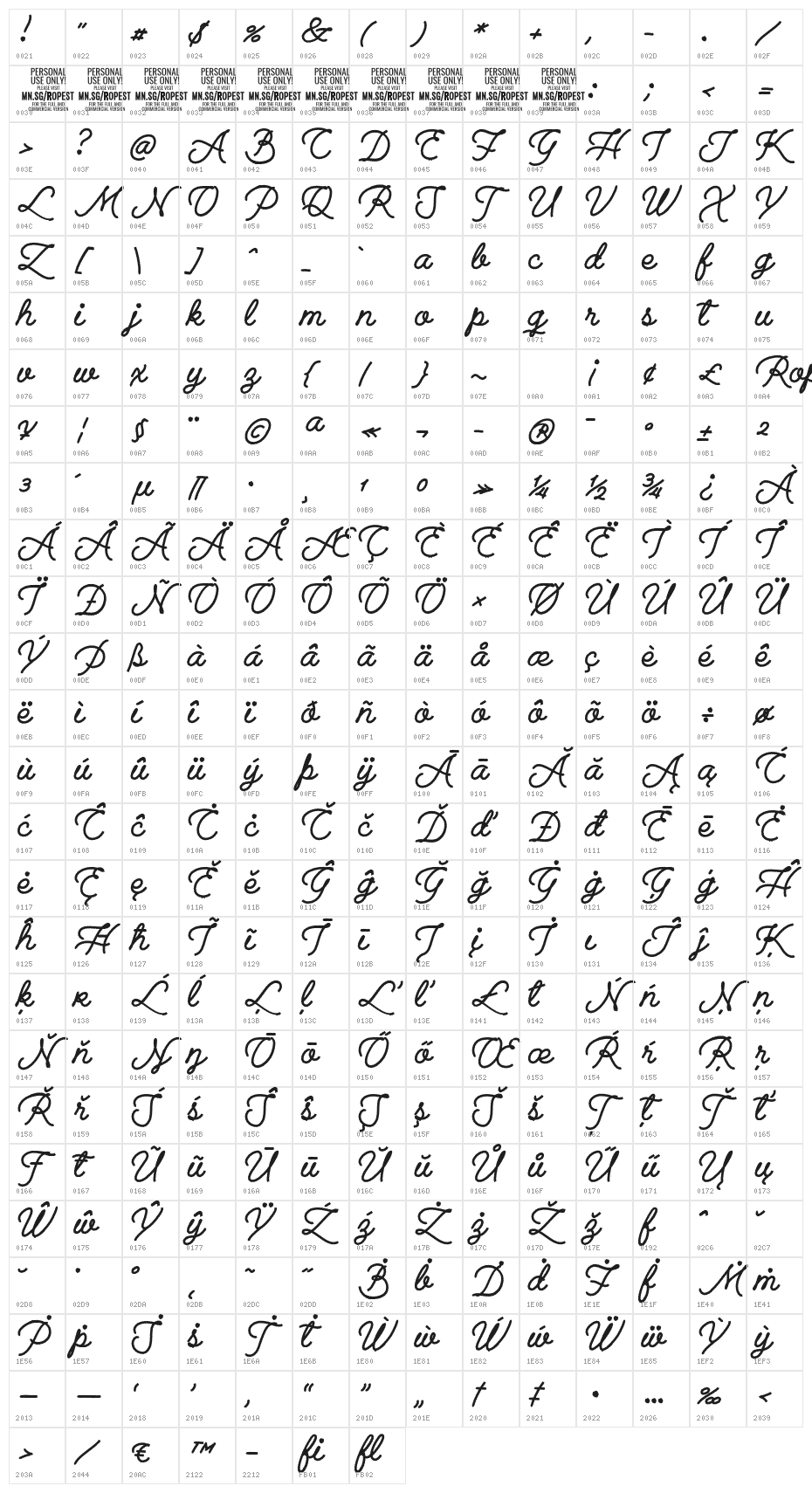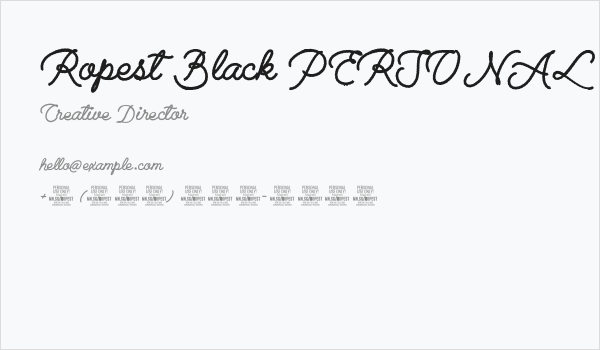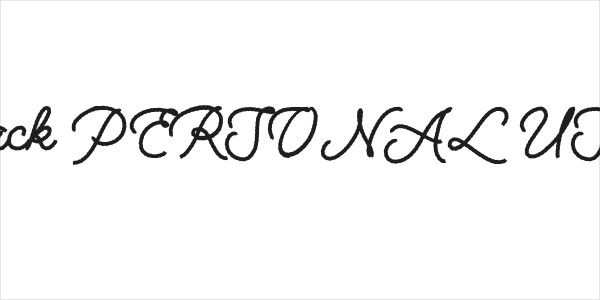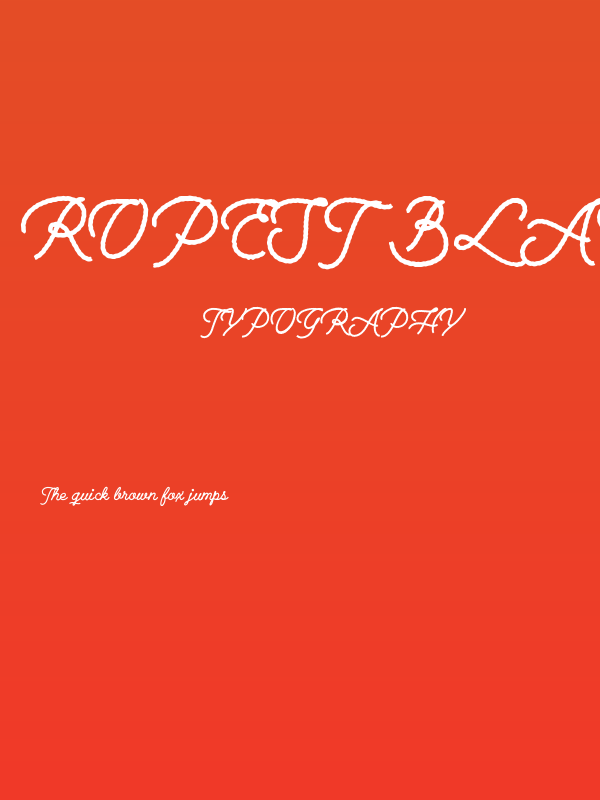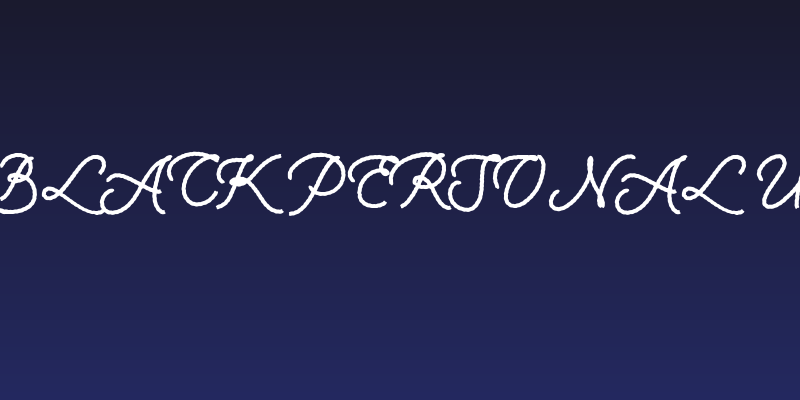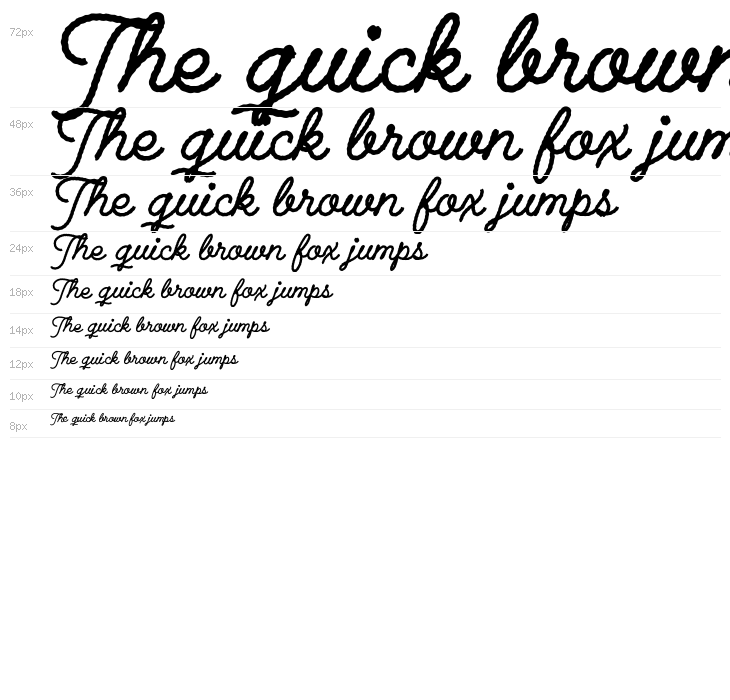
Ropest Black PERSONAL USE ONLY Font
Ropest Black PERSONAL USE ONLY Description
This font features a bold and flowing script style, reminiscent of elegant handwriting. The characters are interconnected, creating a seamless and fluid appearance. The uppercase letters are slightly more ornate, with flourishes that add a touch of sophistication. The lowercase letters maintain a consistent flow, enhancing readability while retaining a stylish flair. The numbers and special characters are designed to match the overall aesthetic, ensuring a cohesive look across all text. This font's boldness and unique style make it suitable for creative and expressive projects.
| Proposed Projects | Ideal for wedding invitations, branding, logo design, and decorative headings. |